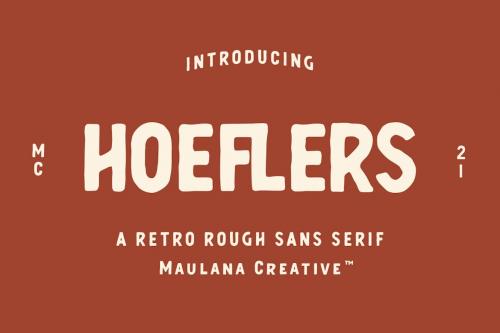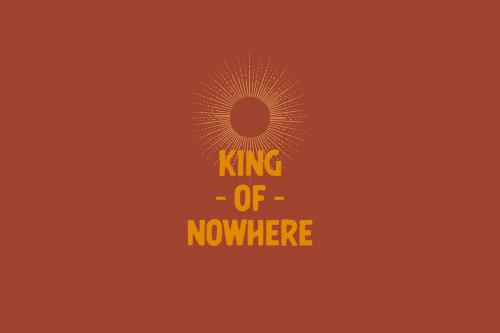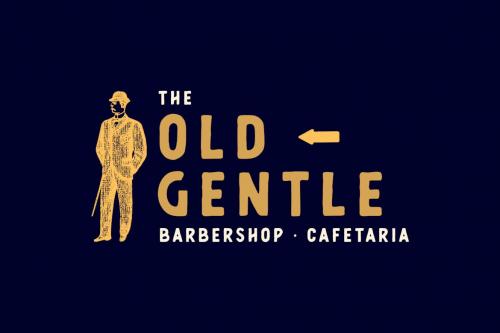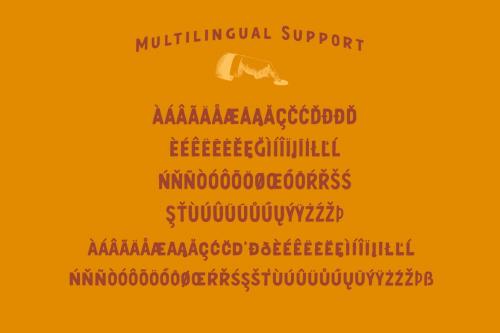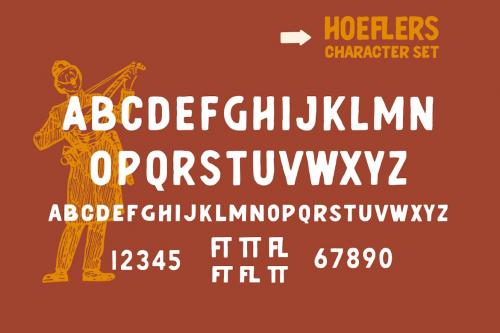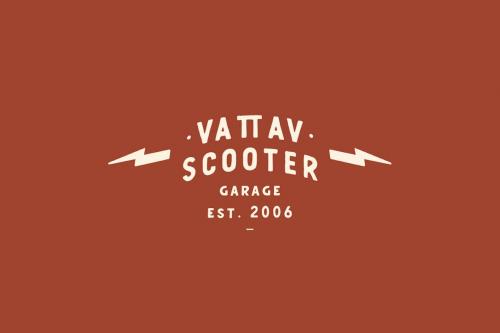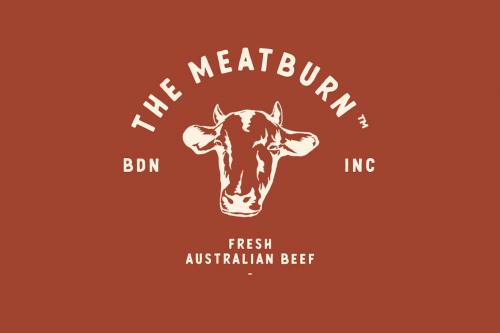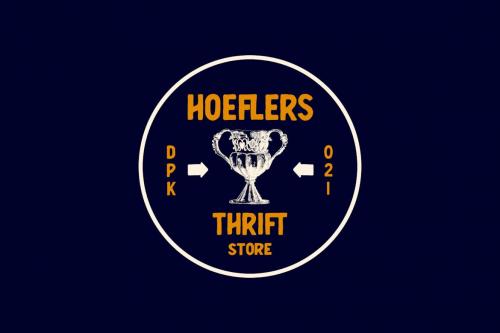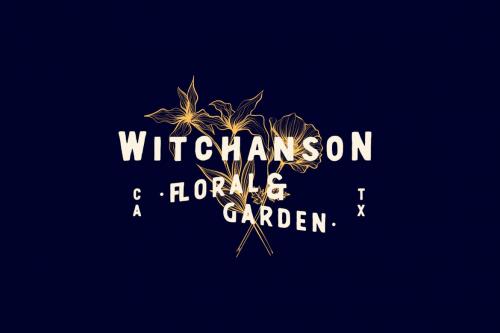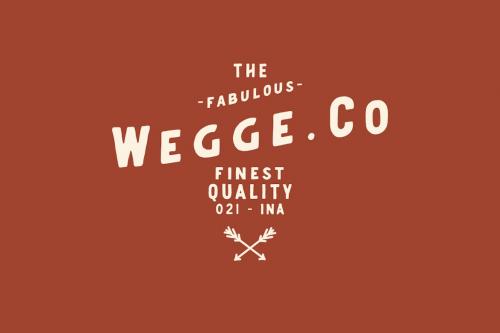
霍夫勒粗糙 sans 字体
Hoeflers Rough Sans Font
Hoeflers is a Hand-lettered font inspired by the vintage 70's sign board, music, shop and movies, it has a rough stroke outline and then we fill it. Hoeflers includes opentype features Ligatures. It support multilingual more than 100+ language. This font is good for logo design, Movie Titles, Books Titles and any awesome project you create. Make a stunning work with Hoeflers Rough sans font.